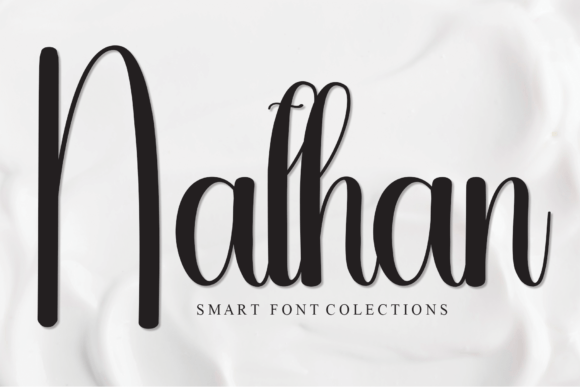
Introducing Nathan Font, the epitome of sweetness and friendliness in the world of handwritten fonts! Created by the talented William Jhordy, this delightful script font is perfect for adding a touch of charm to your projects. Whether you're designing wedding invitations, crafting heartfelt cards, or simply seeking a fun twist for your creative endeavors, Nathan Font is the answer you've been searching for.
With its fresh and neat appearance, Nathan Font effortlessly captures hearts and leaves a lasting impression. Its elegant strokes and playful curves create a harmonious blend of sophistication and whimsy, making it the ideal choice for those seeking a versatile script font. Let this font be your creative companion as you embark on a journey of design brilliance.
Immerse yourself in the world of endless possibilities as you explore the captivating features of Nathan Font. Its unique style and exquisite details set it apart from the rest, ensuring your designs stand out from the crowd. Whether you're a professional graphic designer or an aspiring artist, Nathan Font empowers you to bring your ideas to life with flair and finesse.
Are you planning a fairytale wedding? Picture the enchantment of Nathan Font gracing your wedding invitations, setting the tone for a celebration of love and joy. Its handwritten essence adds a personal touch, making each invitation feel like a treasured keepsake. Your guests will be captivated by the elegance and warmth that emanates from every word.
But the magic doesn't end there. Nathan Font's allure extends beyond weddings. Imagine the joy of sending heartfelt cards to your loved ones, each stroke of the pen reflecting the affection and care you hold for them. Let Nathan Font be your voice, conveying your emotions in a way that words alone cannot. Every message becomes a work of art, leaving a lasting impression on those who receive it.
Let your creativity soar as you incorporate Nathan Font into your branding projects. Its versatility shines through, making it the perfect choice for simple logos. Infuse your brand with a touch of personality, leaving a lasting imprint on your audience's memory. Nathan Font will ensure your logo stands out and speaks volumes about your brand's identity.
In a world where first impressions matter, make yours unforgettable with Nathan Font. Embrace the sweet and friendly nature of this handwritten gem and let it breathe life into your designs. Step into a realm of creativity and inspiration, where every stroke carries meaning and every project becomes a masterpiece.